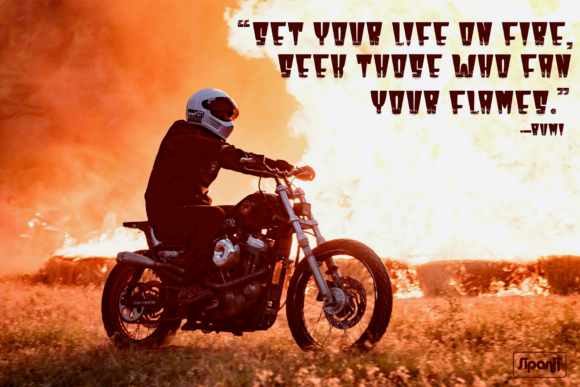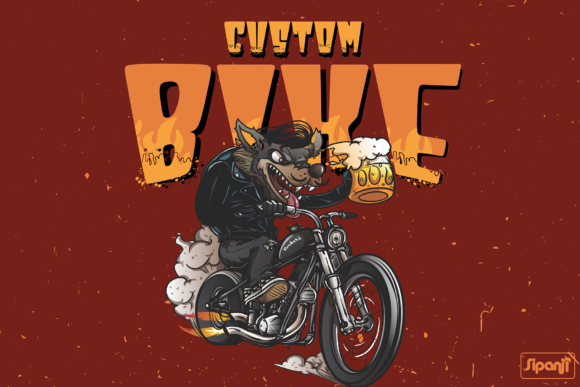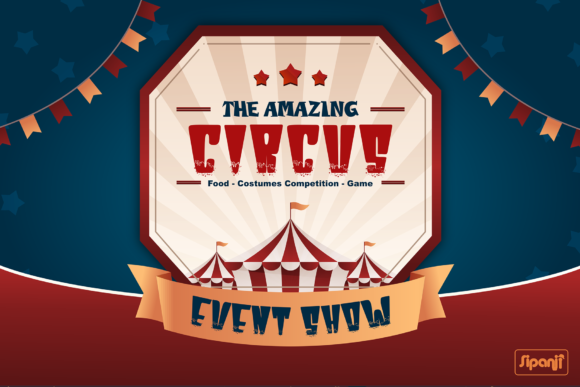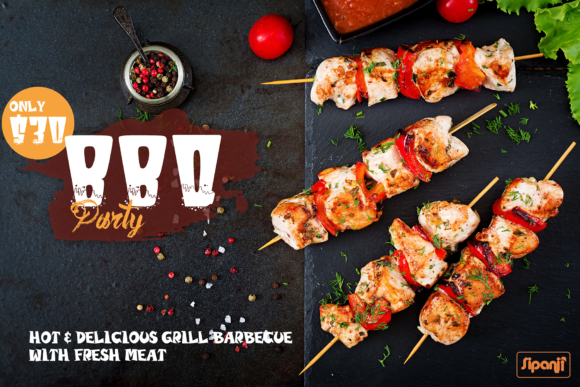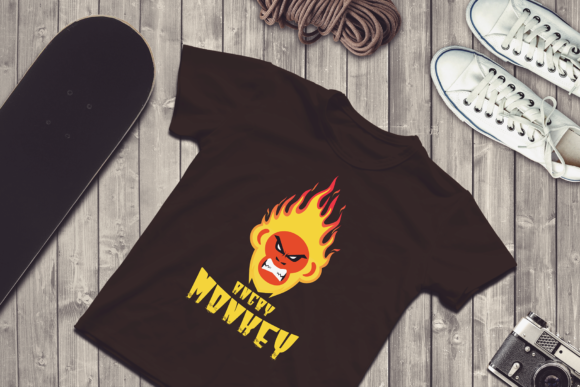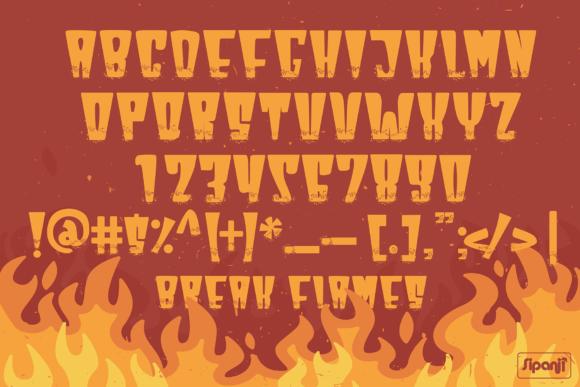
I still remember the frustration of working on a logo design project for a trendy new coffee shop. The concept was solid, the colors were on point, but something was missing – the right font. I scoured the internet, tried out a dozen different fonts, but none seemed to capture the perfect blend of modern and edgy that the client was looking for. That was until I stumbled upon **Break Flames Font**.
A Game-Changing Display Font
Break Flames is a bold and modern display font with a unique twist. Its distinctive style makes it the perfect fit for all your logos, branding, social media, and crafty DIY projects. Whether you’re a designer looking for a font to elevate your client’s brand or a crafter seeking a stylish touch for your handmade goods, **Break Flames Font** is sure to impress.
- ✨ Unique and eye-catching design: The font’s bold and modern style is sure to turn heads.
- ✅ High versatility: Perfect for logos, branding, social media posts, and DIY projects.
- 💡 Instant recognition: The font’s distinctive style makes it easy to create memorable designs.
While Break Flames Font is an excellent choice for many projects, there are a few things to keep in mind:
- ⚠️ Legibility at small sizes: As with many display fonts, Break Flames may not be the best choice for body text or small sizes.
- 🤔 Limited suitability for formal projects: The font’s bold and edgy style may not be suitable for formal or traditional projects.
The creator of Break Flames Font was inspired by the dynamic energy of city streets and the vibrant colors of street art. With a passion for modern design and a knack for creativity, the designer aimed to craft a font that would capture the essence of urban style.
Q: Is Break Flames Font suitable for body text?
A: While Break Flames Font is primarily designed as a display font, it can be used for short paragraphs or captions. However, for longer body text, a more legible font is recommended.
Q: Does Break Flames Font support OpenType features?
A: Yes, Break Flames Font supports various OpenType features, including stylistic alternates and glyphs. Experiment with these features to add more style to your design.
Q: Can I use Break Flames Font on social media?
A: Absolutely! Break Flames Font is perfect for social media posts, captions, and stories. Its bold and modern style is sure to grab attention.